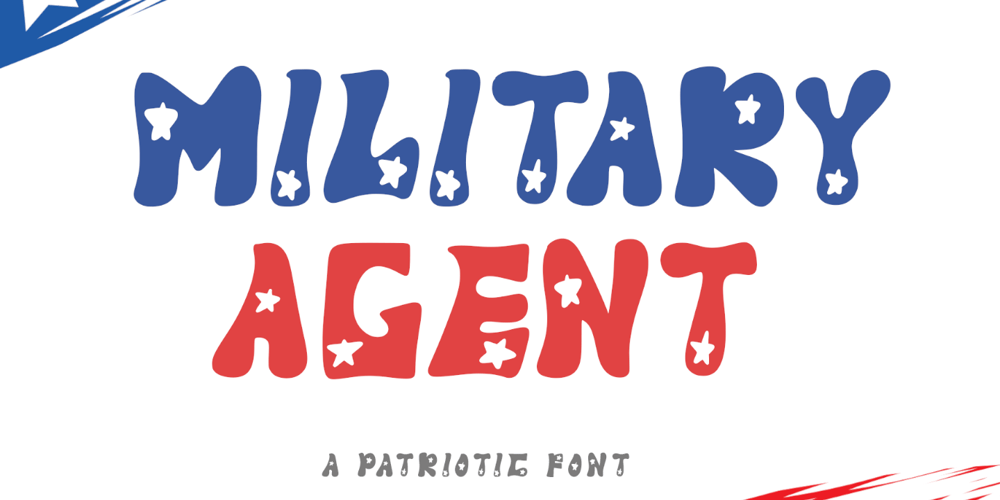
Military Agent Font Family was designed by Isroni Yoga Prasetya and published by Yoga Letter. Military Agent contains 1 styles and family package options. “Military Agent” is a patriot-themed display font. This font is decorated with a star shape on each letter. Equipped with uppercase, lowercase, numerals, punctuation, and multilingual support. Suitable for 4th of July moments, posters, banners, branding, and more.